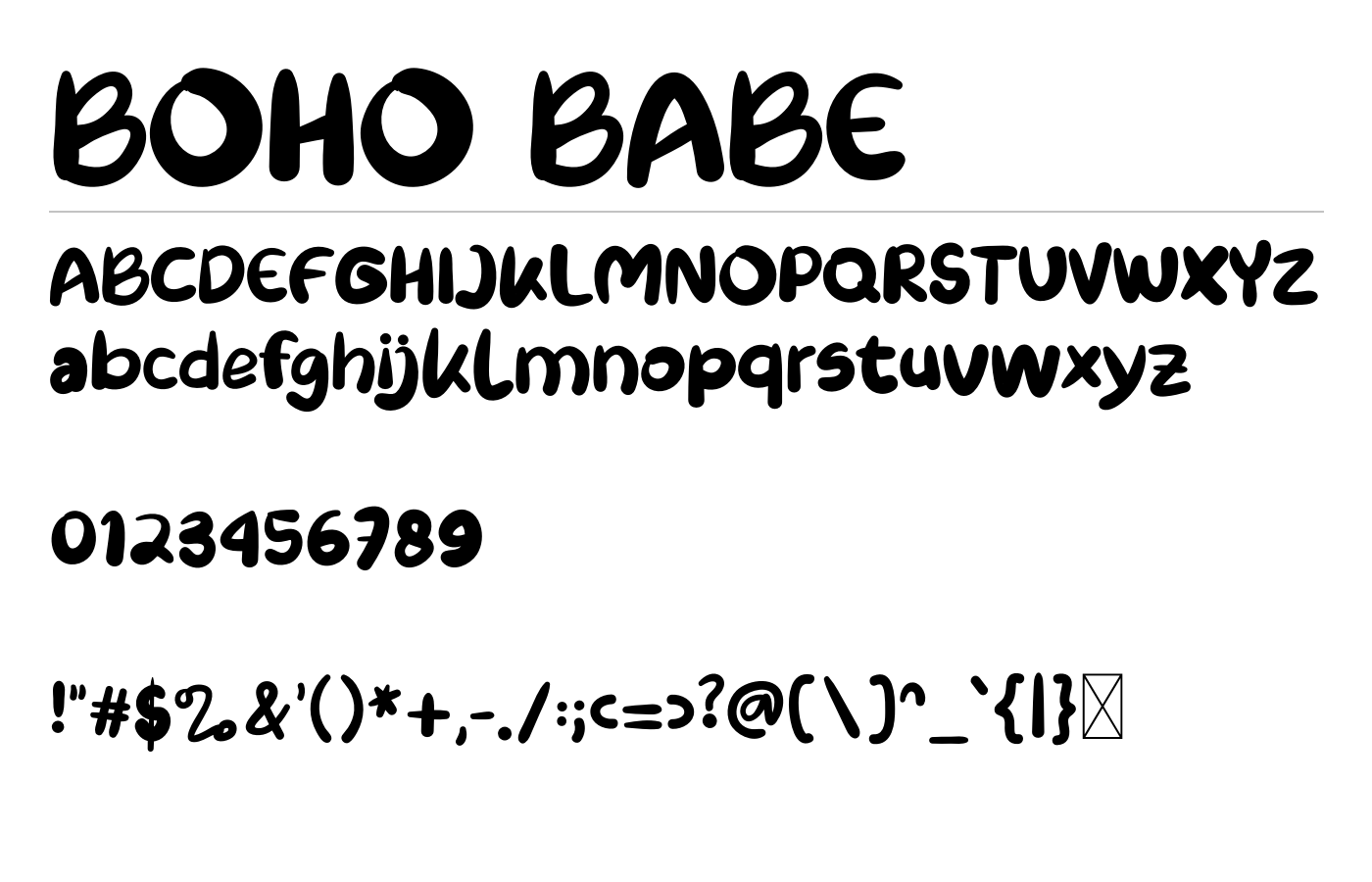
Boho Babe is a playful and bold sans serif font with a hand-drawn, casual style that exudes a warm, friendly vibe. Its rounded, chunky letterforms and lively irregular strokes make it perfect for creative, informal branding, posters, or packaging that aims to feel approachable and fun. This font works best in headlines or logos where a youthful, bohemian charm is desired.
BOHO BABE Font
About BOHO BABE Font